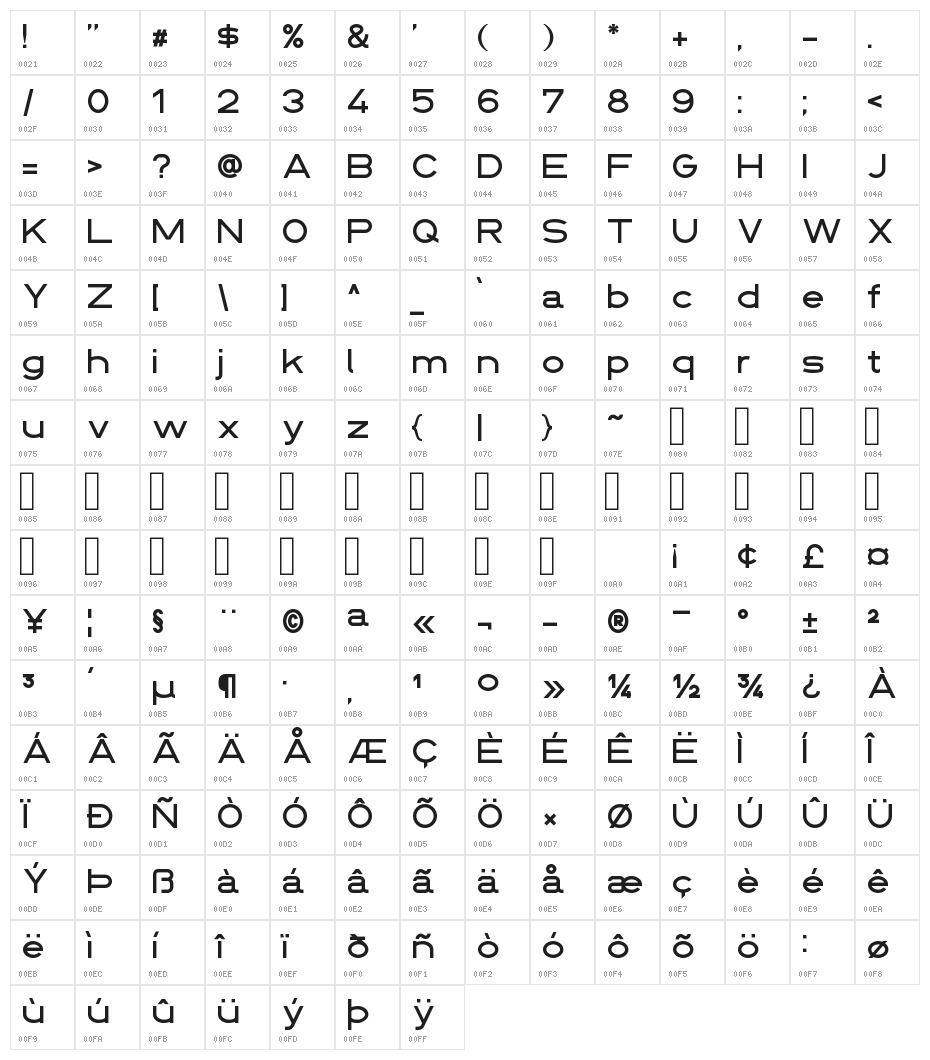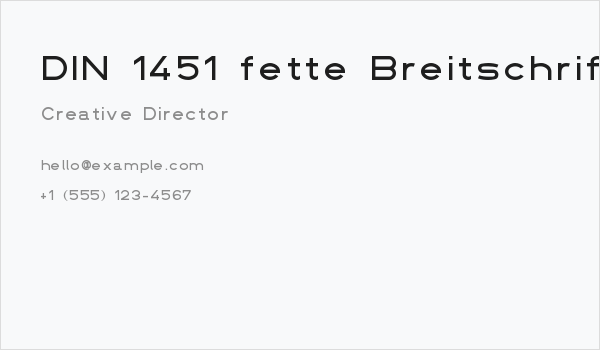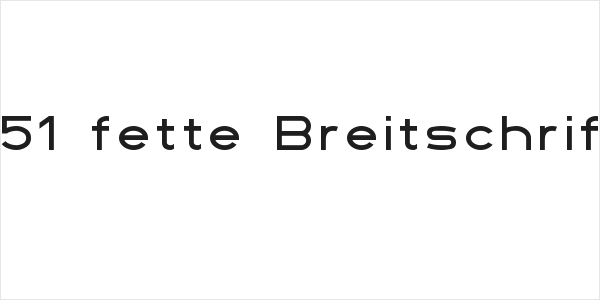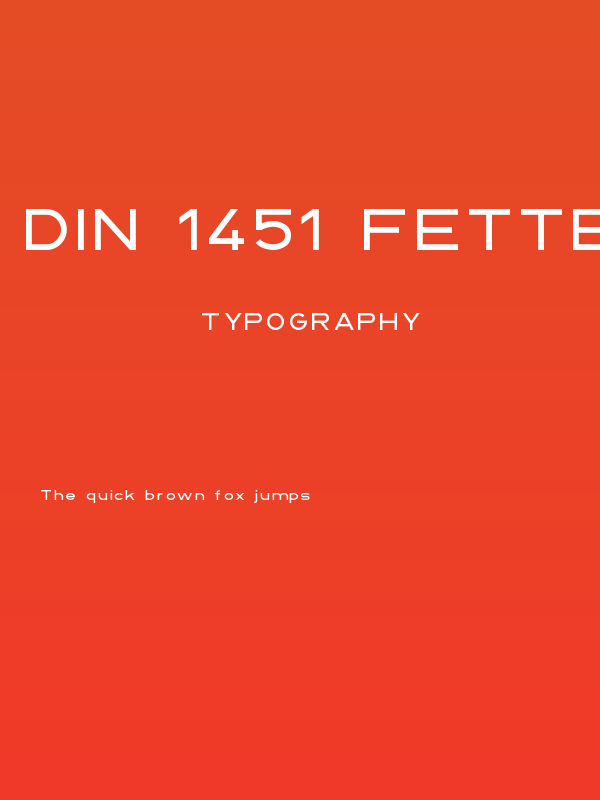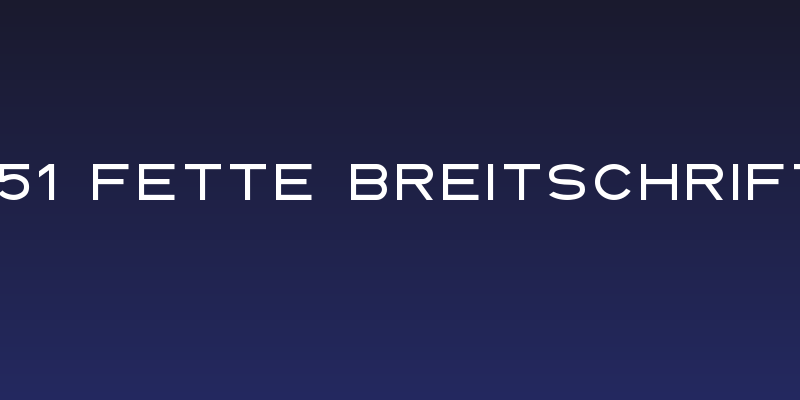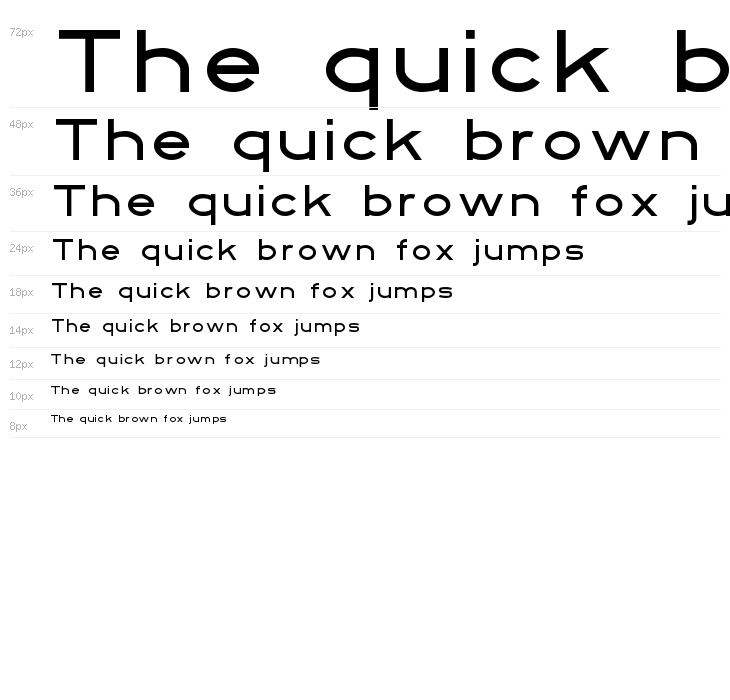
DIN 1451 fette Breitschrift 1936 Font
DIN 1451 fette Breitschrift 1936 Description
This typeface features a clean, geometric design with uniform stroke widths, creating a modern and industrial appearance. The characters are constructed with straight lines and precise curves, giving it a technical and utilitarian feel. The uppercase letters are bold and assertive, while the lowercase letters maintain a consistent height and width, ensuring readability. The numerals are clear and straightforward, making them suitable for technical and engineering contexts. Special characters are designed with the same geometric precision, enhancing the font's cohesive look. Overall, this typeface is ideal for applications requiring clarity and efficiency.
| Use Case | Signage, Technical documentation, Branding |
| Proposed Projects | Ideal for signage, technical documentation, engineering projects, and branding that requires a modern and industrial look. |